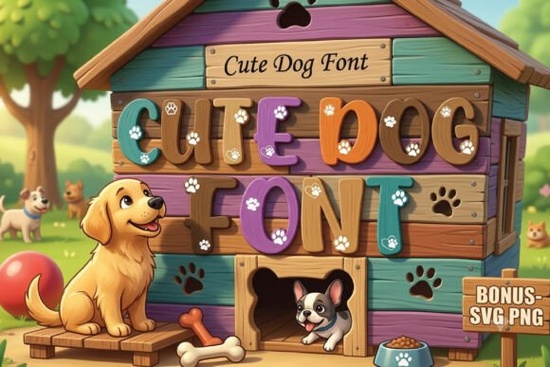
If you're working on a pet-themed project and need something fun, warm, and playful, the Cute Dog Font is worth a close look. This alphabet pack brings together puppy-inspired letters, paw print details, and a charming hand-drawn feel that works well across a range of design projects. Whether you're designing for a dog bakery, a pet adoption flyer, or a child's birthday party, this font pack gives you a cheerful starting point.
What Comes Inside the Cute Dog Font Pack?
This isn't just a single typeface. The Cute Dog Font Alphabet Pack includes a full set of letters and design elements inspired by furry friends and playful puppies. You'll find characters with rounded edges, fun proportions, and subtle pet-themed details like paw accents. The overall style leans sweet and lighthearted, making it a natural fit for projects that need a friendly, approachable look. If you've been browsing colorful and playful font options, this one fits right in with that category.
What Can You Actually Make With This Font?
One of the best things about a themed font like this is how versatile it turns out to be once you start using it. Here are a few real-world uses that work especially well:
- Greeting cards birthday cards for pet lovers, adoption congratulations, or holiday cards featuring dogs
- Print-on-demand products t-shirts, mugs, tote bags, and stickers for dog-themed shops on Etsy or Redbubble
- Social media graphics Instagram posts, Facebook headers, or Pinterest pins for pet businesses and dog influencers
- Kids' crafts and party supplies invitations, banners, labels, and cupcake toppers for animal-themed parties
- Small business branding dog groomers, pet sitters, doggy daycare centers, and local pet shops can use it for logos, signage, and menus
- Scrapbooking adding personality to pet photo albums and memory pages
The playful letter shapes hold up well at both large and small sizes, so you can use them for headlines and subheadings without losing readability.
Who Should Use a Dog-Themed Font?
This font was clearly designed with dog lovers and pet-focused creators in mind. If you run a small business related to animals grooming, boarding, veterinary care, pet photography having a few themed fonts in your toolkit saves time when you need to create quick promotional materials.
Crafters and hobbyists will also appreciate it. If you sell handmade goods at local markets or through an online shop, a font like this helps your products look polished without hiring a designer. It's especially useful for people who use Cricut or Silhouette machines for custom projects.
Teachers and parents, too think classroom decorations, reward charts, and reading corner signs with a fun animal theme.
How Does It Compare to Other Playful Fonts?
Compared to more generic decorative fonts, the Cute Dog Font stands out because of its specific theme. You're not just getting a playful typeface you're getting one that directly communicates "pet-friendly" and "animal lover" at a glance. That specificity matters when you're building a brand or designing for a niche audience.
Quick Checklist Before You Start Designing
Before you download and start creating, keep these tips in mind:
- Check the license make sure the font's usage rights match your project, especially for commercial use
- Pair it wisely use a simple, clean font for body text and let the Cute Dog Font handle headlines and accents
- Test at different sizes preview your design at both small and large scales to make sure everything reads clearly
- Think about color this font looks great in warm tones like brown, orange, golden yellow, and soft pink
- Keep it balanced a themed font works best when it doesn't have to compete with too many other decorative elements
Start with one project a simple card, a social media post, or a sticker design and see how it fits your style. Once you get a feel for the letter shapes and spacing, you'll find plenty of ways to use it across your creative work.